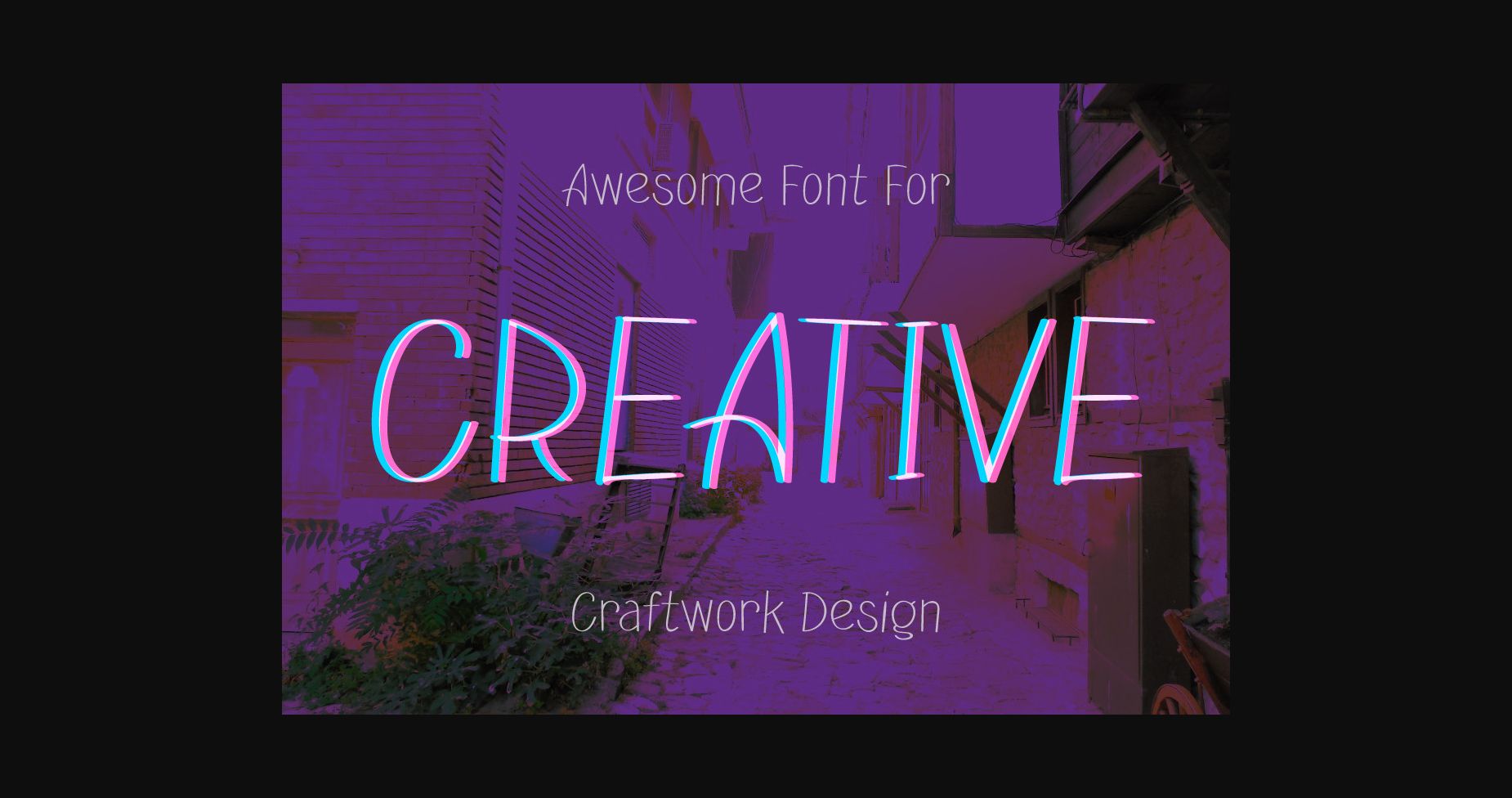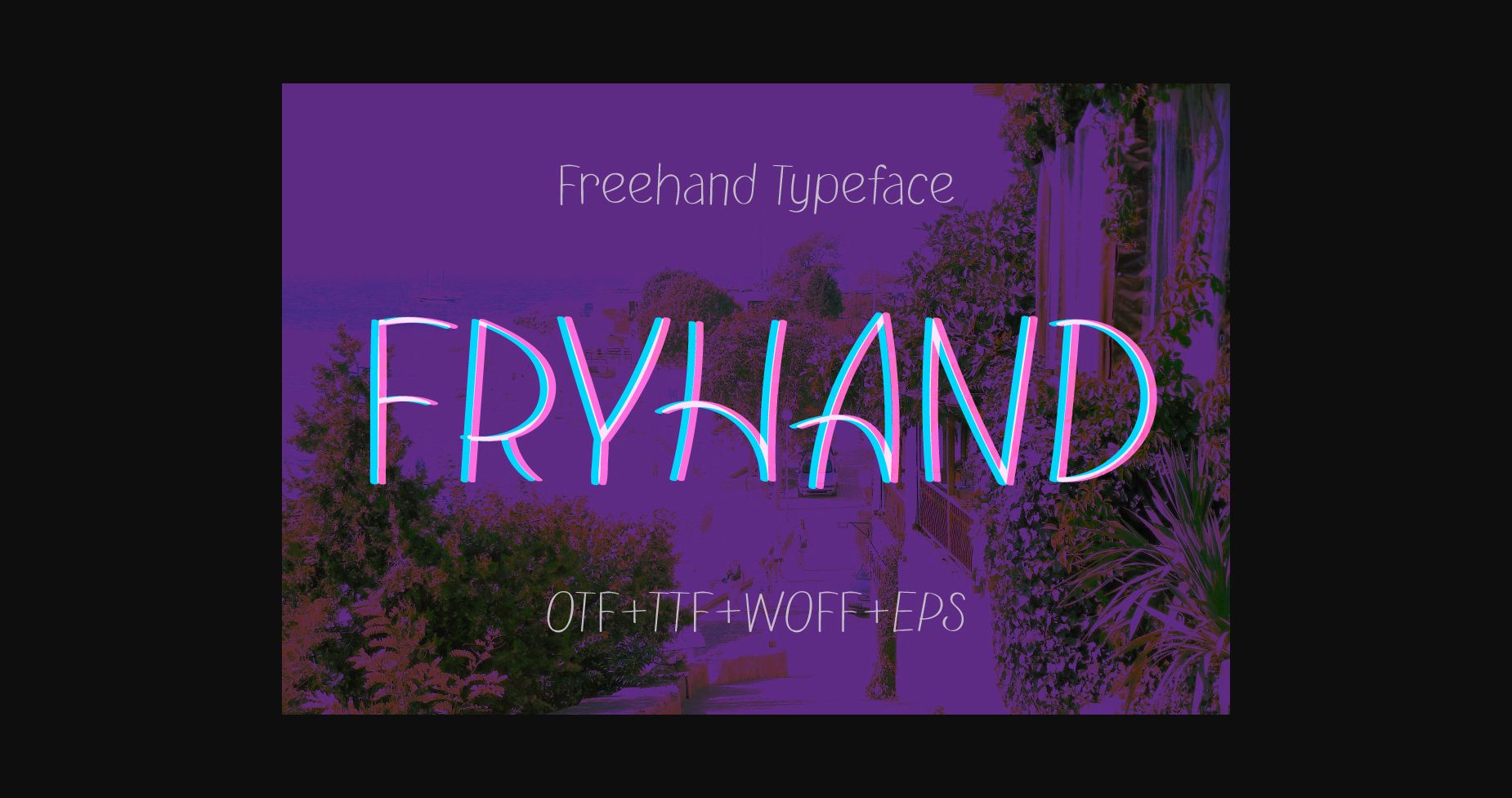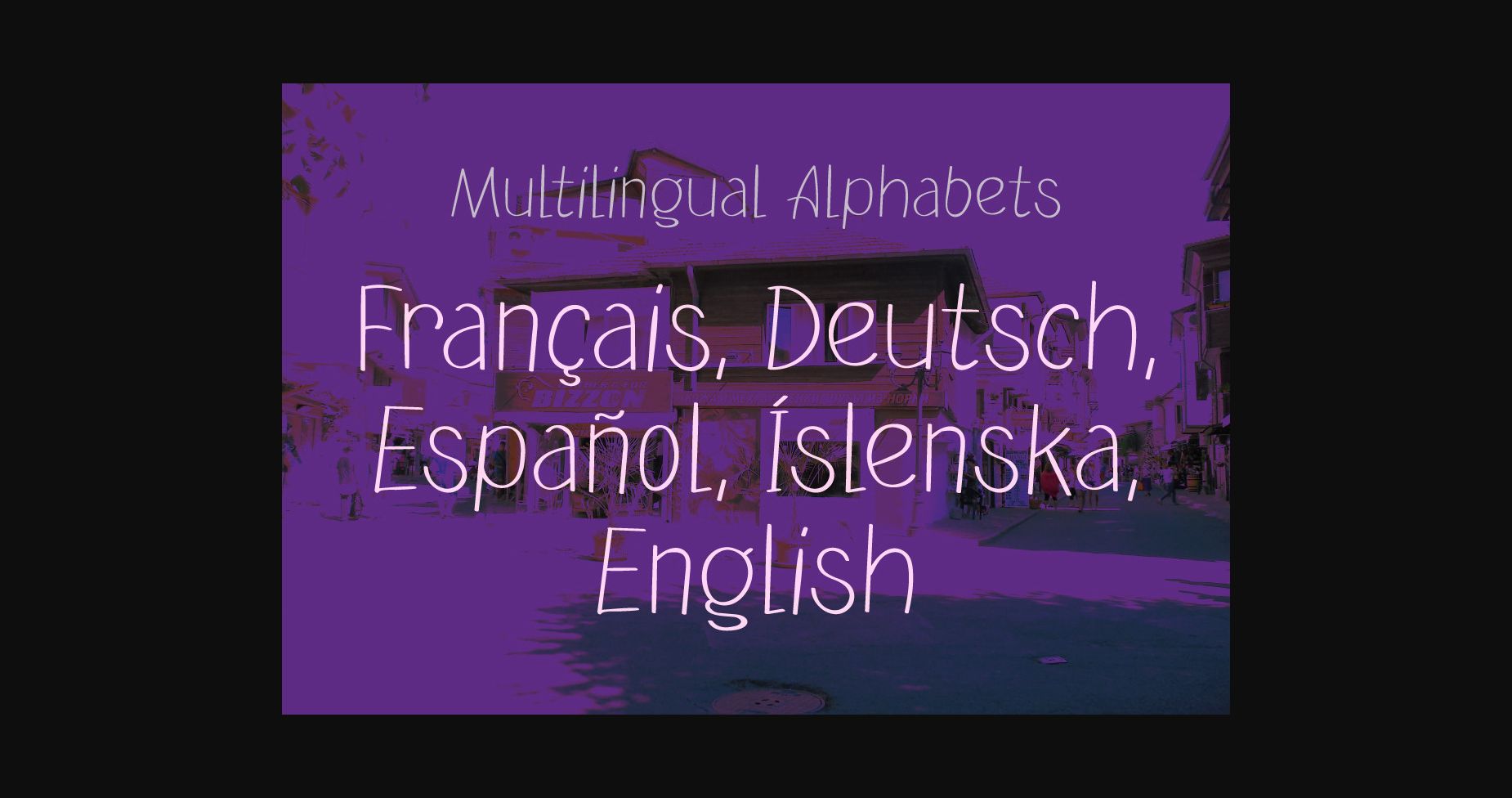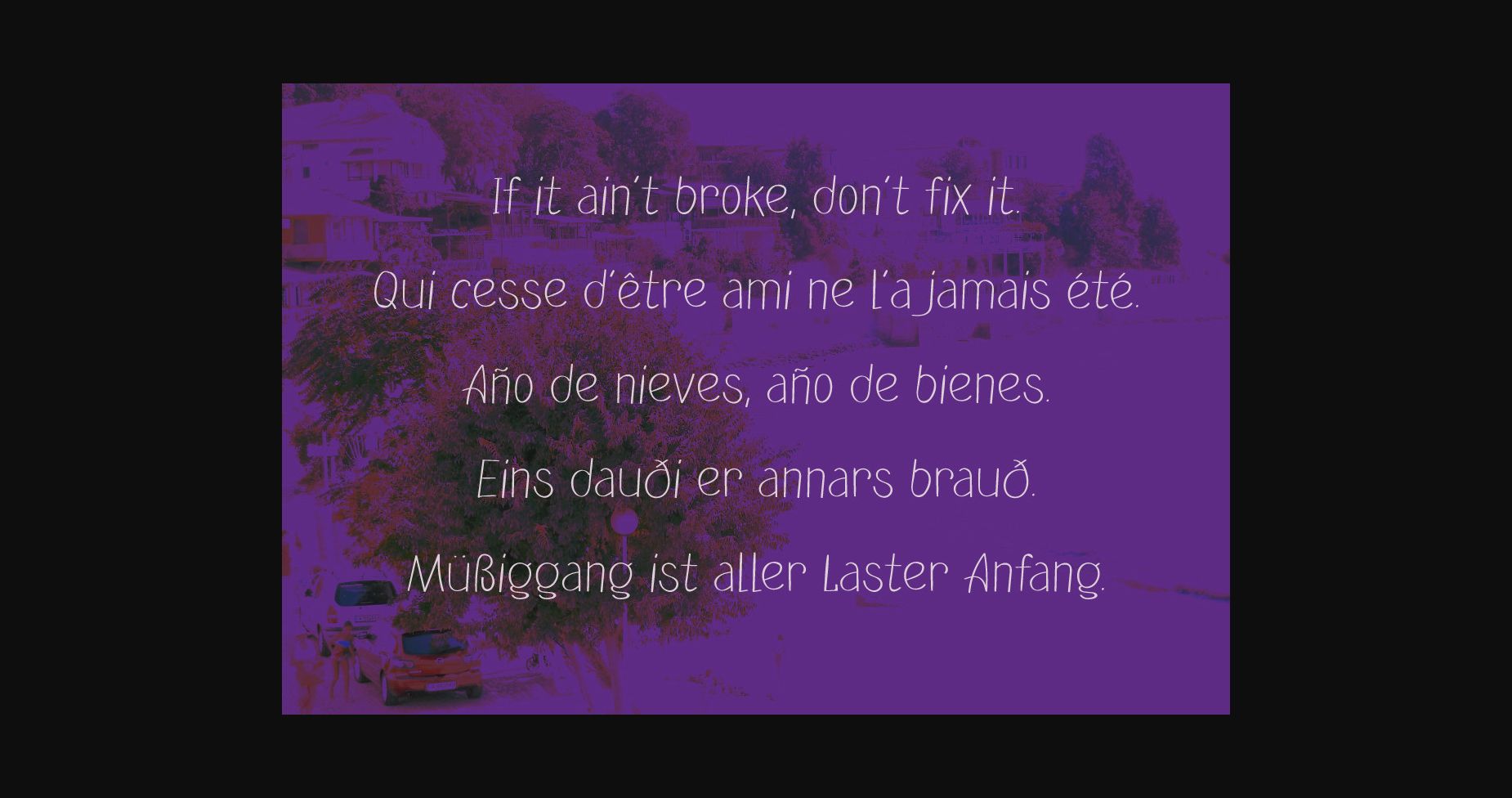
HomeSans Serif FontsFryhand Font Sans Serif Fonts Fryhand Font FacebookXPinterestWhatsApp 1 of 6 ... Fryhand Font Poster 2... Fryhand Font Poster 3... Fryhand Font Poster 4... Fryhand Font Poster 5... Fryhand Font Poster 6... About Fryhand Font Fryhand is a minimal and neat sans serif font. It can easily be matched to an incredibly large set of projects, so add it to your creative ideas and notice how it makes them stand out! DOWNLOAD NOW People also explored Heart Love Font Esthete Font History Font Lostefa Mesmerize Font Christmas Day Font Chunky Font Birthay Font Flower Essences Solidarity Font 322 0 TagsFryhandFryhand Font Previous articleKhalif FontNext articleSafira Font LEAVE A REPLY Cancel reply Comment: Please enter your comment! Name:* Please enter your name here Email:* You have entered an incorrect email address! Please enter your email address here Website: Save my name, email, and website in this browser for the next time I comment. Personal Use Free Playground Clip Art Personal Use Free Read more about this font Amellis Path Personal Use Free Read more about this font Gunplay Personal Use Free Read more about this font Rennoya Personal Use Free Read more about this font BLOG Fonts That Capture the Spirit of New York City New York City is more than just a place—it’s an experience, a rhythm, a visual language... Where to Buy American Fonts Online in 2024 The 10 Best Handwriting Fonts to Add Personality to Your Designs To increase your work productivity, choose the most readable fonts.